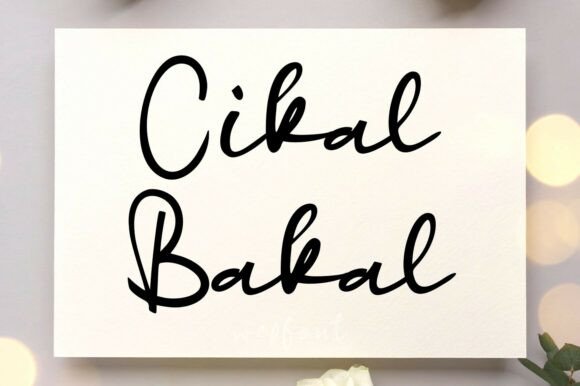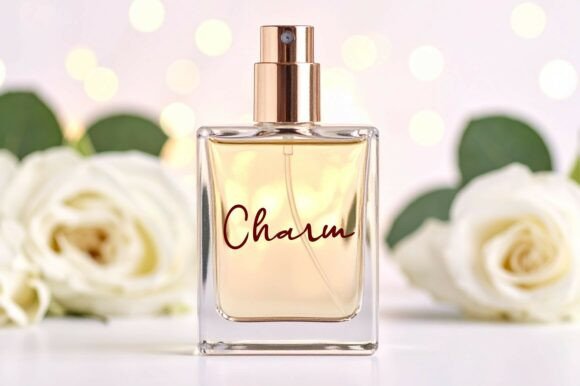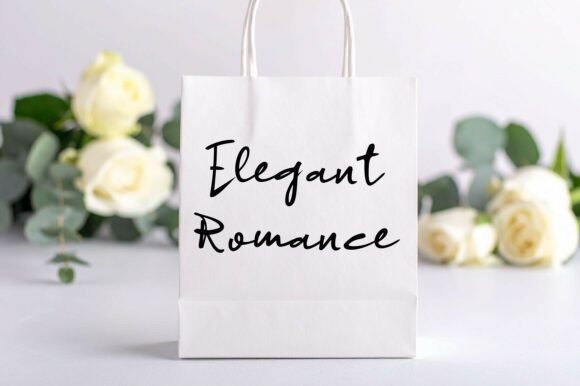
Introduction to Cikal Bakal Font
As designers, we’ve all been there – staring at a blank canvas, searching for the perfect font to bring our creative vision to life. It’s a moment of pure excitement and anticipation, and for many of us, the discovery of the perfect font can be a game-changer. This is exactly what happens when you come across the exquisite Cikal Bakal Font, a true masterpiece of script font artistry that exudes timeless charm and sophistication.
With its meticulously crafted strokes and true-to-life flair, Cikal Bakal Font is a valuable addition to any design resource. Its elegance and nuance make it a top choice for a wide range of creative projects, from luxury branding and perfume labels to elegant packaging and meaningful greeting cards. Whether you’re working on a high-end design or a personal stationery project, Cikal Bakal Font offers a rich canvas of stylistic possibilities.
Cikal Bakal Font
- Unique characteristic: The Cikal Bakal Font features a distinctive, hand-drawn design that adds a touch of elegance to any creative project.
Honest Review: Cikal Bakal Font
I recently stumbled upon the Cikal Bakal Font while searching for a design resource for a creative project. As a designer, I was impressed by its high quality and versatility.
- ✨ Beautifully crafted characters with a transparent background, perfect for creating stunning visual effects.
- ✨ The font’s clean design makes it ideal for a wide range of creative projects, from logos to brochures.
- ⚠️ The font’s limited character set may not be suitable for projects that require a wide range of characters, such as books or long-form content.
- ⚠️ Some users may find the font’s design too simple or minimalist, which may not appeal to those who prefer more complex or ornate fonts.
Overall, I’m impressed with the Cikal Bakal Font’s quality and flexibility. While it may have some limitations, I believe it’s a valuable resource for designers looking to add a touch of elegance to their creative projects.
Cikal Bakal Font
Cikal Bakal Font is a versatile and high-quality design resource that can elevate any creative project. With its transparent background and sleek design, this font is perfect for designers looking to add a touch of elegance to their work.
Cikal Bakal Font is suitable for various design projects, including:
- Business card design
- Typography projects